This Monotype fonts bundle includes 50 amazing typefaces built for exploration.
The friendly people at MyFonts have recently packed this great collection of modern and futuristic typefaces as part of their popular “Fontacular” series. The selection consists of a range of various Monotype fonts as well as a collection of typefaces published by FontFont. Learn more below or click on the following link to grab the entire bundle.
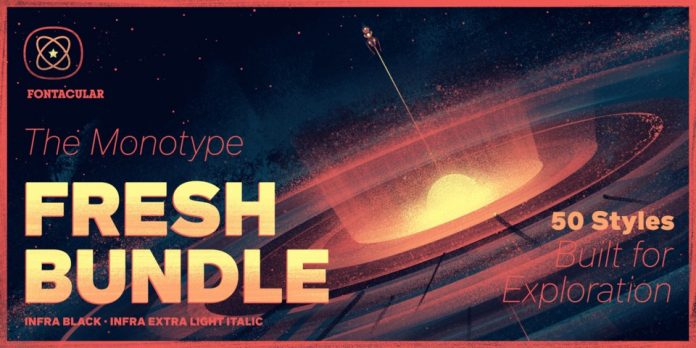
What’s included?
Consting of 50 individual styles, the bundle includes FF Sanuk Big Pro Hairline, Sagrantino Pro Shadow, Wolpe Tempest Pro Regular, Sachsenwald Pro Light, Rosella Pro Deco, Trade Gothic Display Pro 2 Layer 1, FF Attribute Mono Light, FF Attribute Mono Light Italic, Alfie Script Regular, Hope Sans Thin Italic, Hope Sans Thin, Unitext Pro Semibold Italic, Unitext Pro Semibold, Neue Plak Condensed Extra Black, Neue Plak Extended Light, VAG Rounded Next Light Italic, VAG Rounded Next Light, VAG Rounded Next Shine Regular, Terry Junior Rotalic, Walbaum Pro Deco Inline, DIN Next Slab Rust Bold, DIN Next Shadow Bold, FF Sanuk Round Medium, FF Sanuk Round Medium Italic, Hideout Pro Ghost Black, Amrys Book Italic, Elicit Script Light Casual, Placard Next Comp Light, Placard Next Wide Medium, Placard Next Round Bold, Malden Sans Cond Medium, Malden Sans Cond Medium Italic, Malden Sans ExtraBold, Malden Sans Thin, FF Infra ExtraLight, FF Infra ExtraLight Italic, FF Infra Black, FF Infra Black Italic, Mundo Serif Book, Mundo Serif Book Italic, Carnero Semibold, Carnero Semibold Italic, Helvetica Now Text Light, Helvetica Now Display ExtraBlack, Ariata Display Black, Ariata Stencil Medium, FF Neuwelt Medium Italic, and FF Neuwelt Inline.